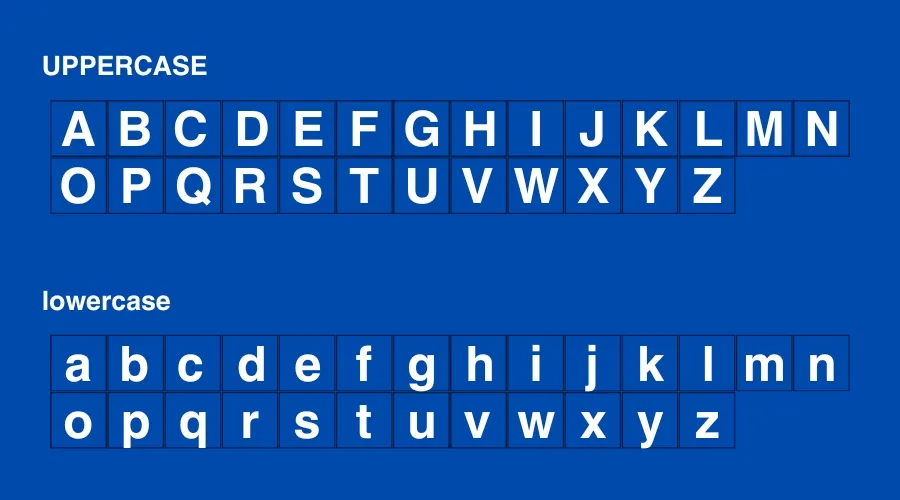
Helvetica Cyrillic Font
About Helvetica Cyrillic Font
Helvetica Cyrillic Font style is designed by Max Miedinger and it has been offered in a wide range of sizes and styles. This typeface has great readability from a distance. We are offering a free version. It can be used for a variety of purposes.
It has different characters including small, capitals and ligatures the classiest features are available in the OpenType system a large number of languages have been supported, such as Latin, Cyrillic, Greek, and Hebrew.
A text style that looks like this typeface is Helvetica. If the user wants to create a visually attractive design, you can easily pair this design with other typefaces. You can try the Helvetica Cyrillic text style with the Fivo typeface to create amazing designs.
It is a highly recommended lettering style by international designers that is suitable for a variety of uses. A typeface is a great option for body text as well as headlines and display use.